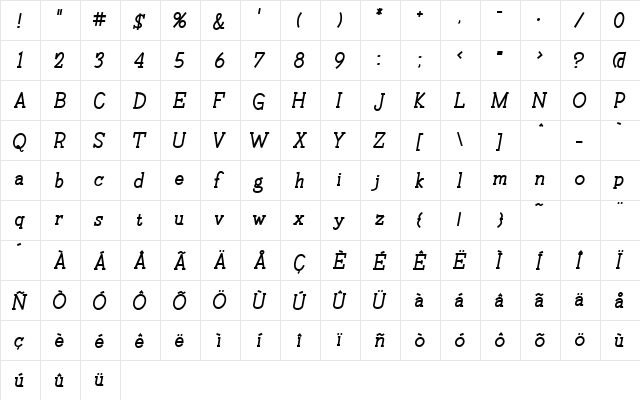
FHExcelsior Regular
Design Context for FHExcelsior Typeface
FHExcelsior offers clean, dependable letterforms without strong stylistic allegiance, making it a practical choice for designers who need flexibility.
Pro Tip: Pair FHExcelsior with a font of contrasting weight or personality to build a more expressive typographic hierarchy.